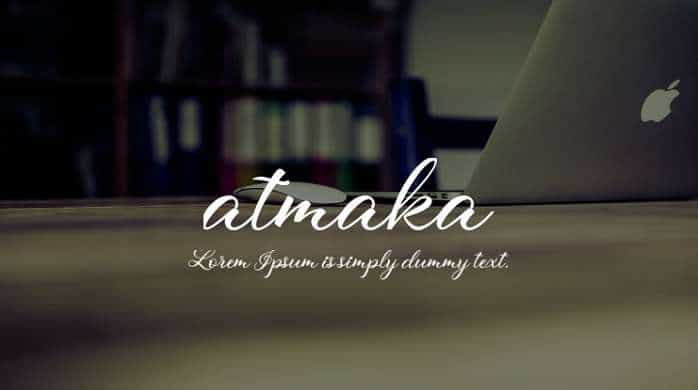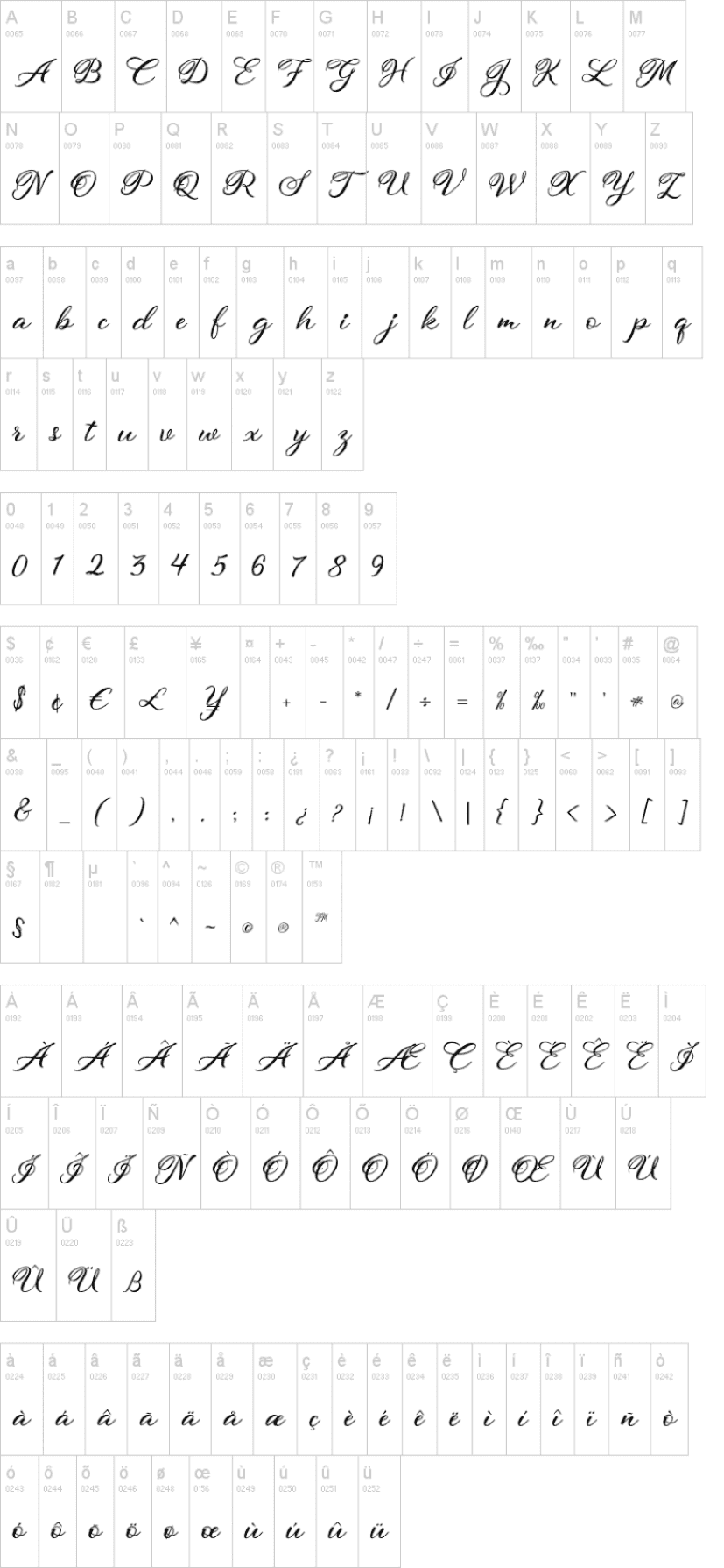
Discover Atmaka Font, part of the Calligraphy collection—a versatile and unique font perfect for adding a personal touch to your projects. Download it for free and enjoy crafting designs with style, from invitations to social media posts. This font is available exclusively for personal use, giving you the freedom to create without limits. Unlock your creativity with Atmaka Font today!
Atmaka Lovely Script Font is a premium quality script font that can be used for logo design, banner, print, poster, social media banner, graphic design and more